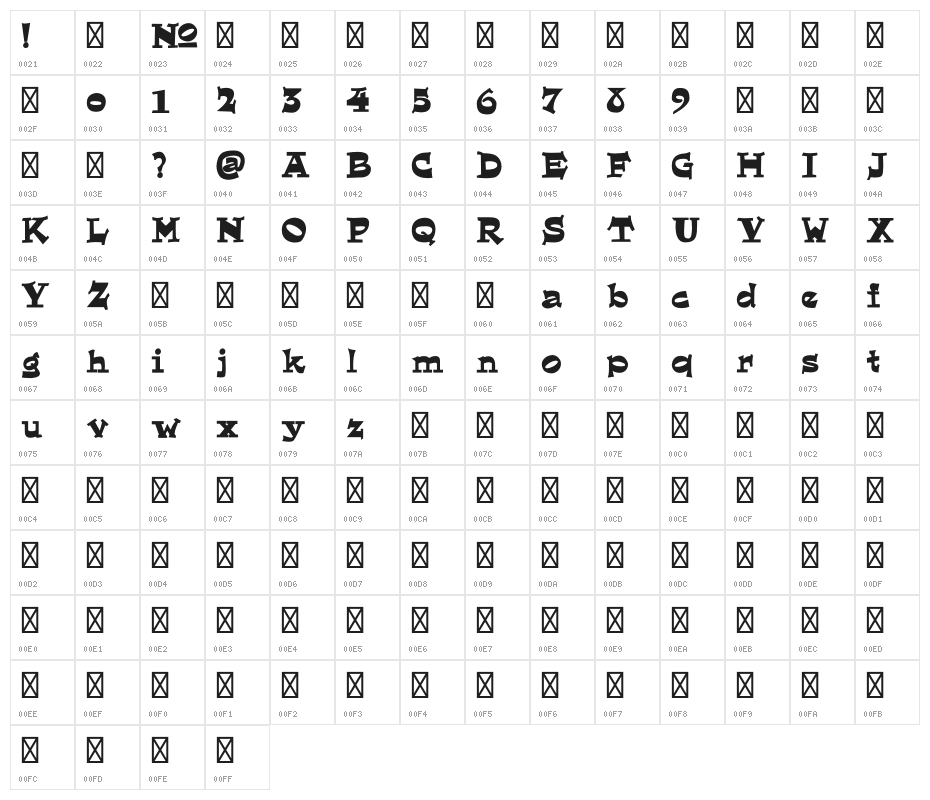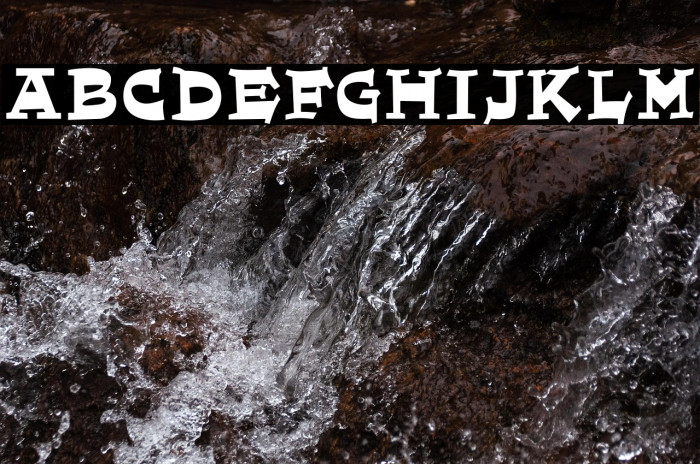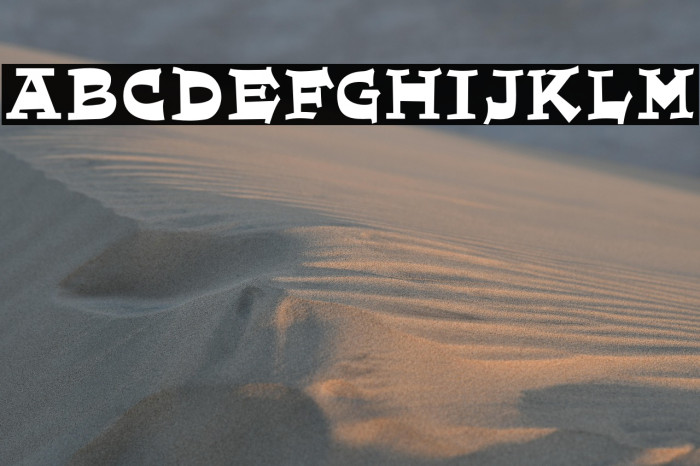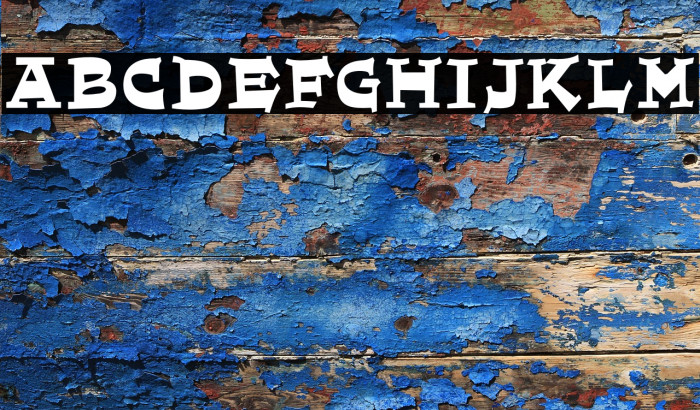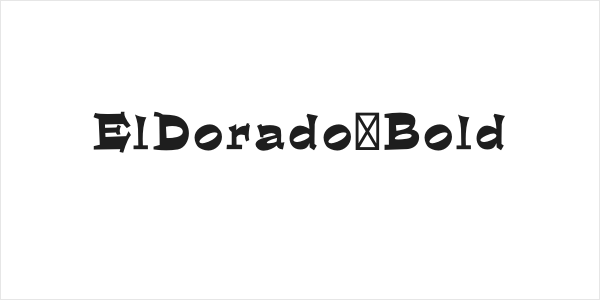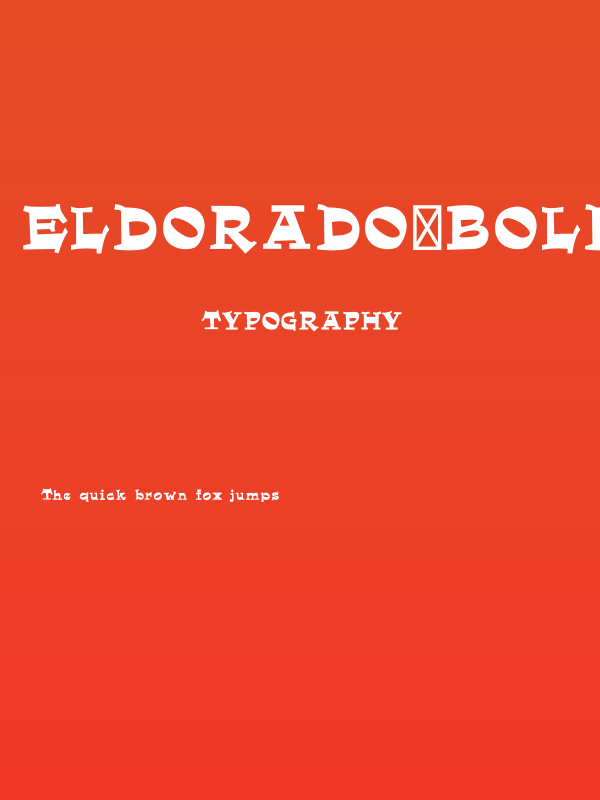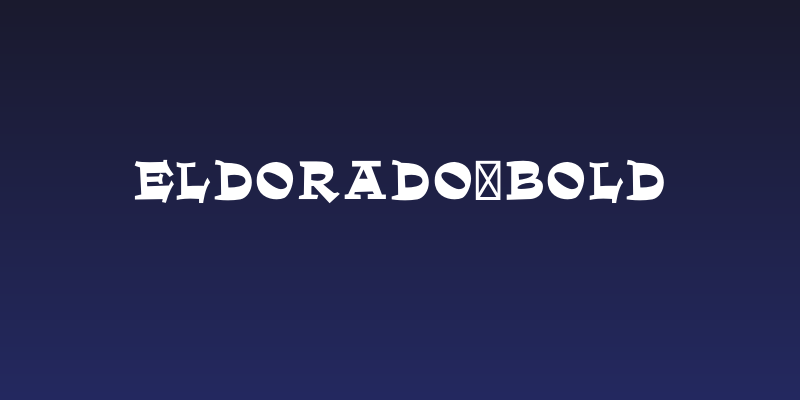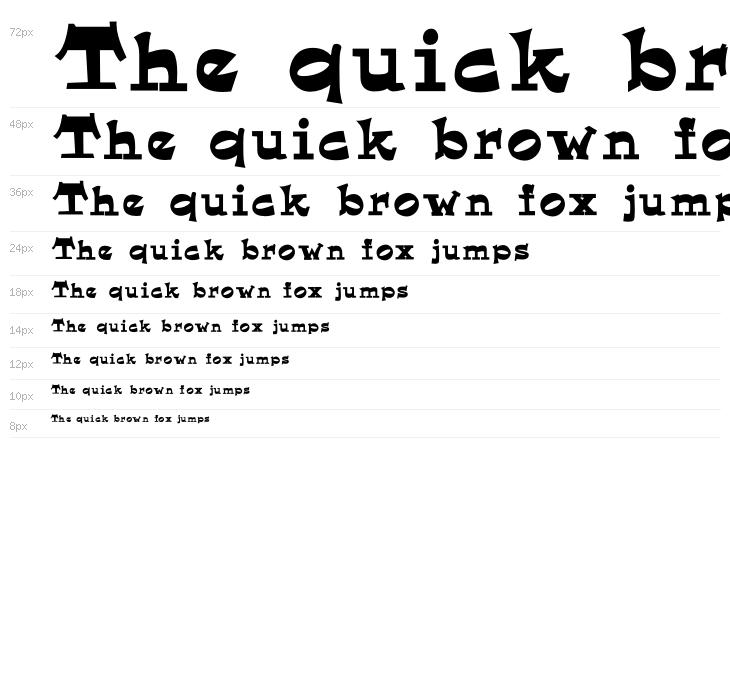
ElDorado-Bold Font
ElDorado-Bold Description
This font features a bold and dynamic style with a distinct decorative flair. The characters have a strong presence with thick strokes and unique serifs that give them a slightly rugged appearance. The uppercase letters are particularly striking, with angular cuts and a sense of movement. The lowercase letters maintain the boldness while offering a more rounded and approachable look. Numbers are consistent with the overall style, providing a cohesive appearance. Special characters are creatively designed, adding to the font's unique personality.
| Proposed Projects | Ideal for posters, branding, and headlines that require a bold and distinctive look. |